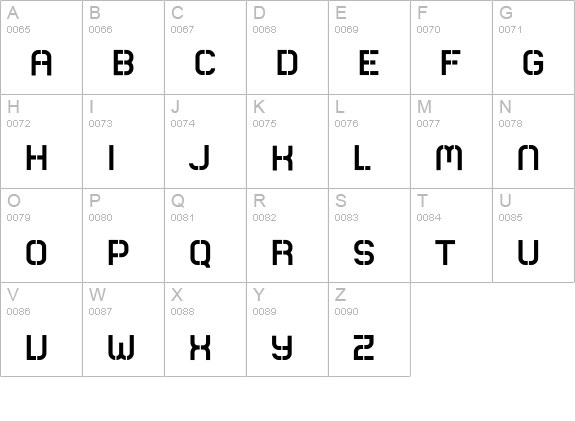
Comsat-Box Font Details
Comsat-Box font is a modern and versatile typeface that exudes a sleek and futuristic aesthetic. With its clean lines and geometric shapes, this font is perfect for adding a contemporary touch to any design project. Whether you're creating a logo, website, or print materials, Comsat-Box font will make your text stand out with its bold and eye-catching appearance. What's even better is that Comsat-Box font is completely free to download at FontsMarket.com. You can easily access this stylish font and incorporate it into your work without any cost. Don't miss out on the opportunity to enhance your designs with the unique and dynamic look of Comsat-Box font. Download it today and let your creativity shine!